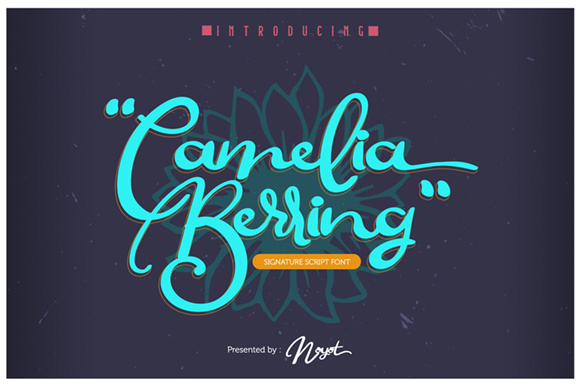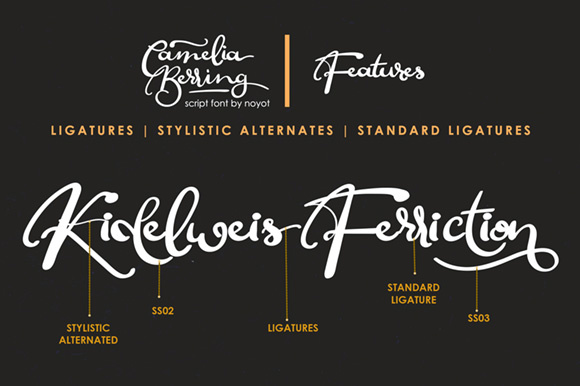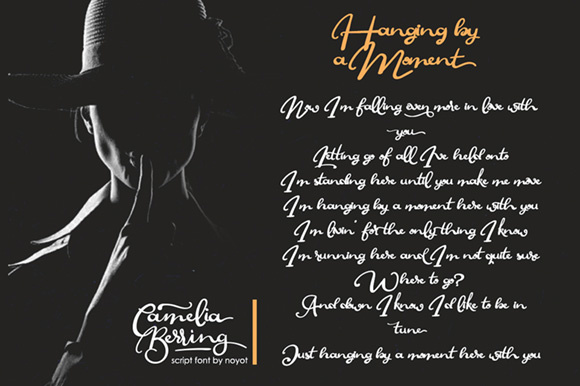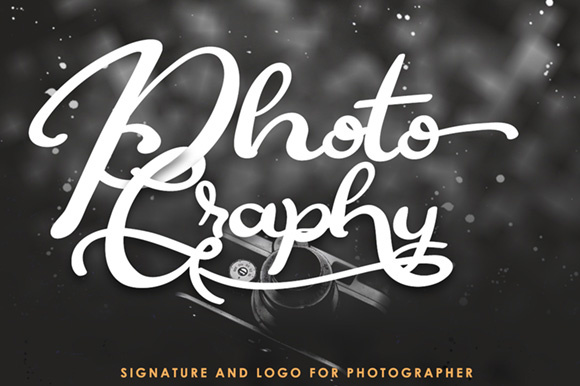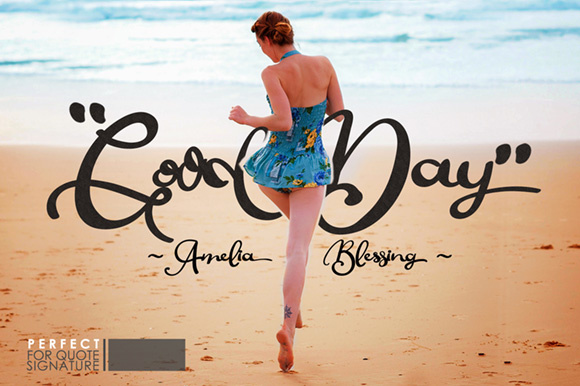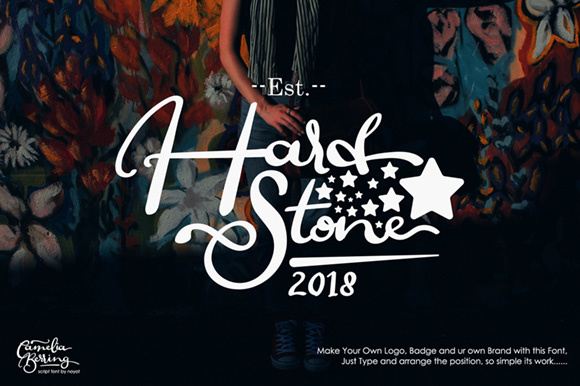
Unleash Your Creativity with the Timeless Charm of Camelia Berring Script Font
As a designer, there’s nothing quite like the feeling of staring at a blank page, waiting for inspiration to strike. It’s that moment when the world seems to slow down, and your imagination runs wild with possibilities. For many creatives, it’s the perfect moment to break out their favorite font and let the magic begin. And if you’re looking for a font that’s as beautiful as it is timeless, look no further than the Camelia Berring Script Font.
This stunning script font is based on authentic hand-lettering, with smooth flowing characters that seem to dance across the page. Whether you’re working on a wedding invitation, a branding project, or simply a personal passion project, Camelia Berring Script Font is the perfect addition to your design arsenal. Its unique charm and elegance make it a valuable tool for designers looking to add a touch of sophistication to their work.
Camelia Berring Script Font Key Features
- Font Family: Camelia Berring Script
- Unique Characteristics: Handwritten script font with elegant and sophisticated feel, ideal for invitations, wedding designs, and other creative projects
Designer Review: Camelia Berring Script Font
Overall, I’m quite impressed with the Camelia Berring Script Font. Here are the things that stand out to me: ✨
- Legibility: The font is extremely readable, even at smaller sizes. The flowing connections between letters make it perfect for titles and headings.
- Unique Character: Camelia Berring has a distinct personality that sets it apart from other script fonts. The subtle imperfections add a touch of elegance and sophistication.
- Style Versatility: This font is suitable for a wide range of designs, from modern branding to vintage-inspired graphics.
- Font Family: Camelia Berring is a single font family, which means you won’t have as many options for variations and weights.
- Spacing: Some letters may require manual adjustments to achieve perfect spacing, which can be time-consuming.
Overall, I’d give Camelia Berring Script Font 4 out of 5 stars. While it may have some limitations, its unique character and legibility make it a valuable addition to any designer’s toolkit. With a little finesse and adjustment, you can create stunning designs that showcase the best of this beautiful script font.
The Camelia Berring Script Font is perfect for creating elegant and sophisticated designs. It’s commonly used for:
- Wedding and event signage